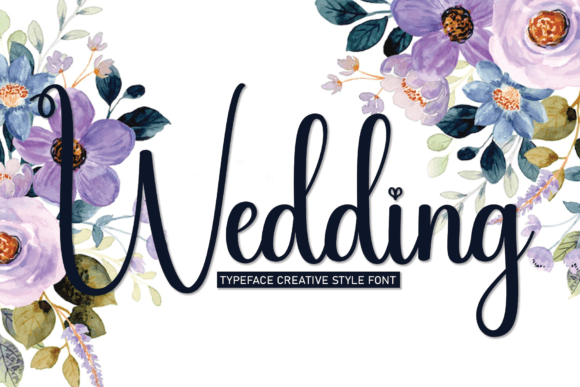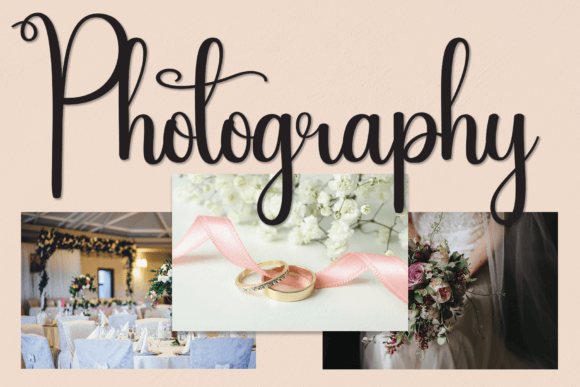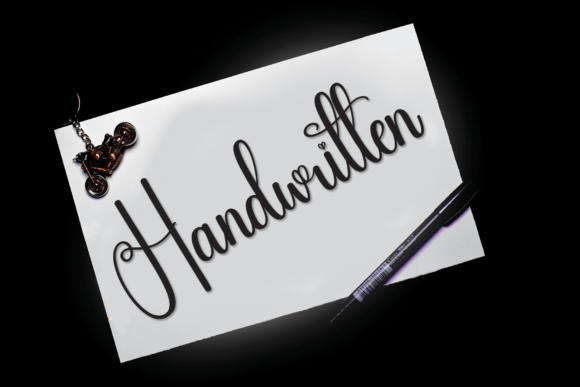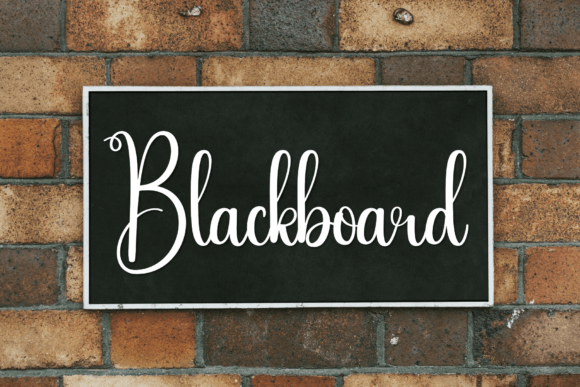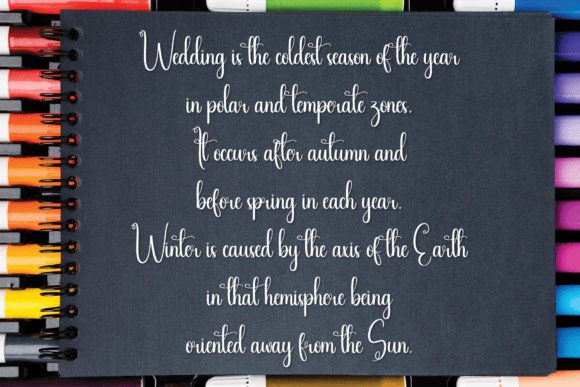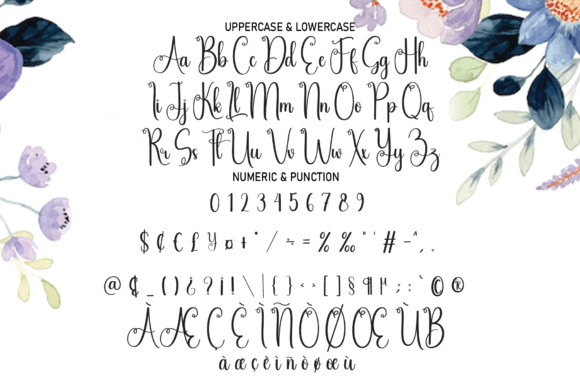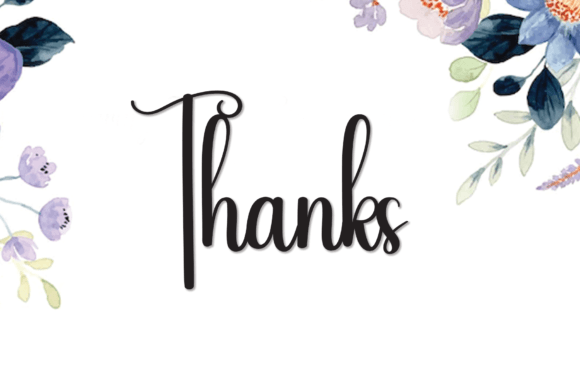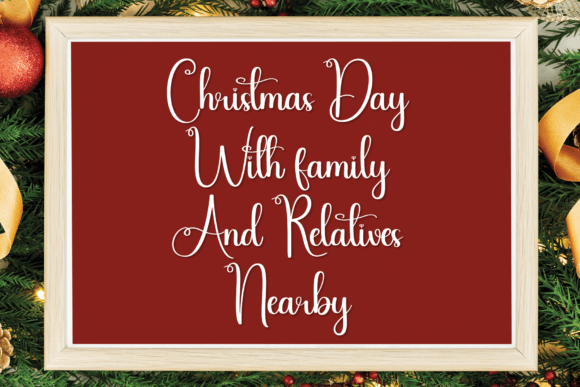
Wedding Font
A Romantic Handwritten Script Typeface
Wedding is a charming handwritten font designed to bring elegance and warmth to your creative projects. With smooth curves and graceful strokes, this font feels both timeless and contemporary. Whether you’re designing invitations, greeting cards, or headlines, Wedding adds a romantic touch that makes every piece feel special.
Its versatile style adapts easily to both personal and professional designs, helping your work stand out with class and beauty.
Wedding is a font you’ll want to use again and again. It’s perfect for wedding invitations, save-the-date cards, and thank you notes. The elegant script creates a heartfelt, personal mood that your guests will love.
For branding, Wedding shines on logos, product packaging, and business cards. The refined, handwritten look makes your brand feel authentic, premium, and approachable.
This font also works beautifully on social media graphics, blog headers, and website banners. The flowing lines and balanced letters keep your content stylish and engaging.
In creative projects, Wedding is ideal for posters, art prints, and custom gifts. The romantic style makes any message feel warm and sincere.
Even with its decorative details, Wedding remains clear and easy to read at any size. Smooth connections and balanced spacing keep your text tidy whether it’s used in big headlines or small captions.
For a clean, modern layout, pair Wedding with a simple sans-serif font. Use Wedding for main titles and highlights, and the sans-serif for supporting content. This combination feels organized and sophisticated while showcasing the script’s personality.
To make Wedding stand out, use neutral backgrounds and soft color palettes. Shades like blush pink, ivory, and light gray help the script pop without overpowering your design.
When creating invitations or packaging, consider adding delicate borders or floral illustrations to enhance the romantic feel.
On social media, embrace white space to keep your text clear and your designs clean.
Think about the mood you want to share. Wedding is perfect for projects that should feel warm, elegant, and timeless.
Wedding isn’t just another handwritten font—it’s a creative tool that makes every project feel special and unforgettable. From professional branding to personal keepsakes, this font adapts effortlessly to any purpose and adds a polished finish to your work.
Adding Wedding to your font collection means you’ll always have a versatile, beautiful option ready to go. Whether you’re designing logos, invitations, or social media graphics, this font helps every project feel unique and memorable.